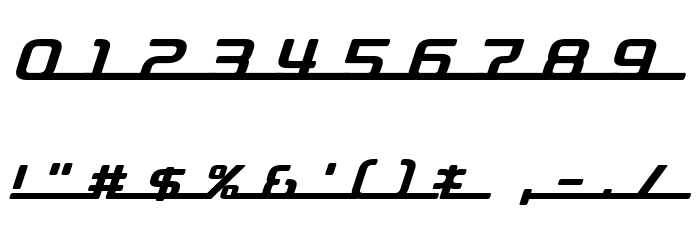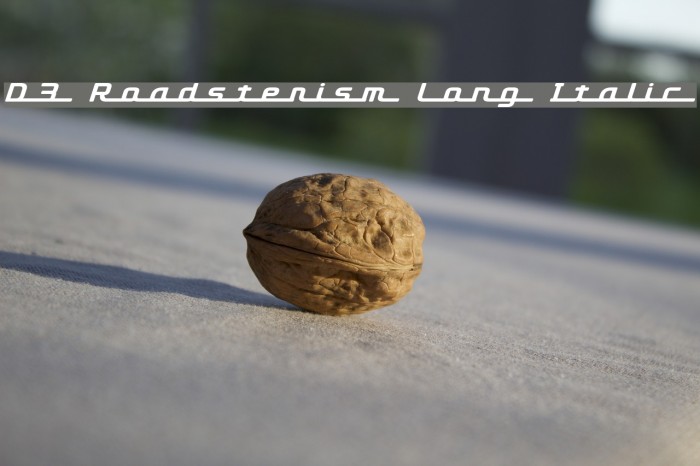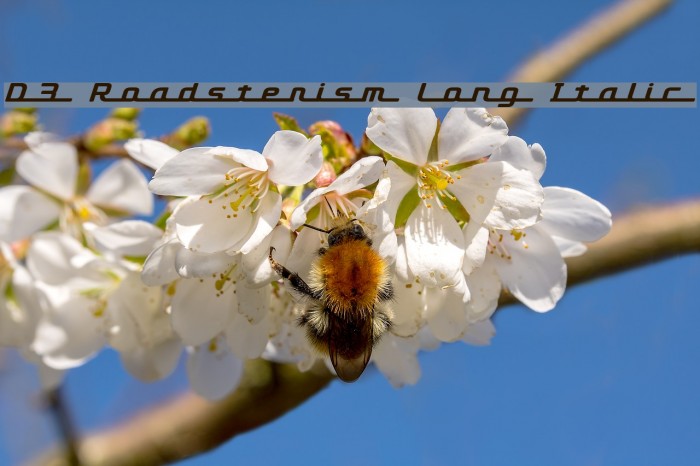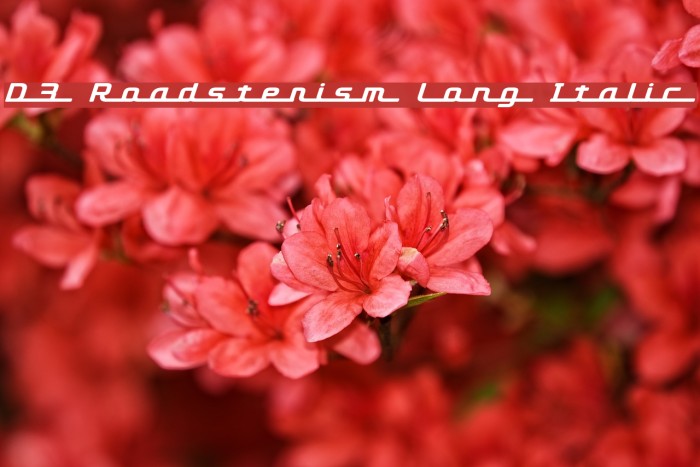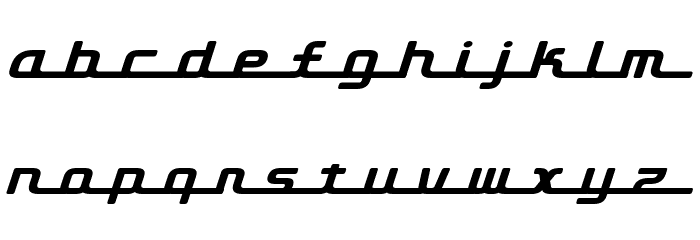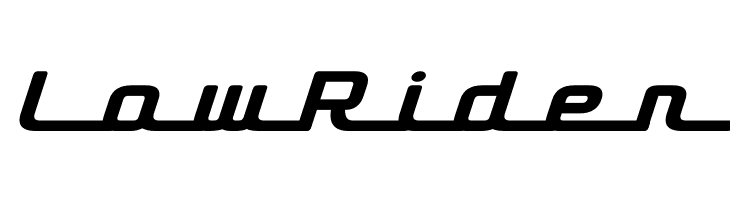
D3 Roadsterism Long Italic Font
D3 Roadsterism Long Italic Description
This font features a sleek, elongated design with a distinct italic slant, giving it a dynamic and modern appearance. The characters are connected with smooth, flowing lines that create a sense of motion and speed. The uppercase letters are bold and prominent, while the lowercase letters maintain a consistent style, enhancing readability. Numbers and special characters are designed with the same fluidity, ensuring a cohesive look across all text elements. The font's unique style makes it suitable for projects that require a contemporary and energetic feel.
| Use Case | Logos, Headlines, Posters |
| Proposed Projects | Ideal for automotive branding, sports event posters, modern logos, and dynamic web design. |